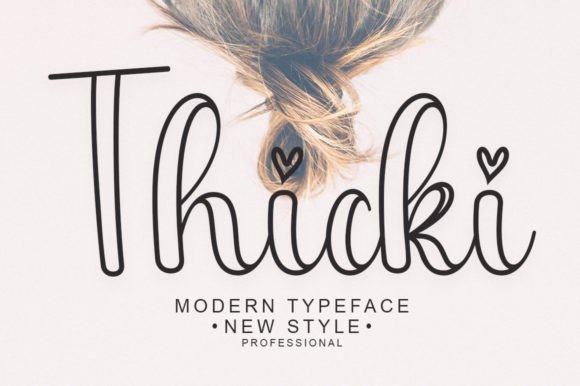
Dive into the world of typography with Thicki Outline Font, a beautiful and expressive handwritten font that will add a touch of elegance and uniqueness to your creative projects. With its beautiful curves and delicate strokes, this script font exudes a sense of charm and sophistication, making it the perfect choice for adding a personal touch to your designs.
Thicki Outline Font is the brainchild of Diorde Studio and showcases their passion for creating fonts that are both visually stunning and highly functional. This font is perfect for writing wedding invitations, cards, posters, logos, and any other design that requires a touch of elegance and personality. It's a script font that will take your designs to new heights and elevate your creativity.
Step away from the mundane and embrace the magic of Thicki Outline Font for your User Interface (UI) design projects. Its unique style and charming appearance will captivate your users, creating a memorable and engaging experience. Whether you're designing a website, app, or presentation, Thicki Outline Font will leave a lasting impression and make your designs stand out from the crowd.
Whether you're a seasoned designer or just starting out, Thicki Outline Font is a must-have for your font collection. Its versatility and timeless style make it a true asset for any designer looking to create projects that are both visually appealing and impactful. Don't miss out on this opportunity to add a touch of elegance and sophistication to your designs with Thicki Outline Font.
Let Thicki Outline Font be your creative companion, guiding you towards designs that are both beautiful and unforgettable. Embrace its unique charm and watch as your projects come to life with a touch of sophistication and style. Discover the magic of Thicki Outline Font today!